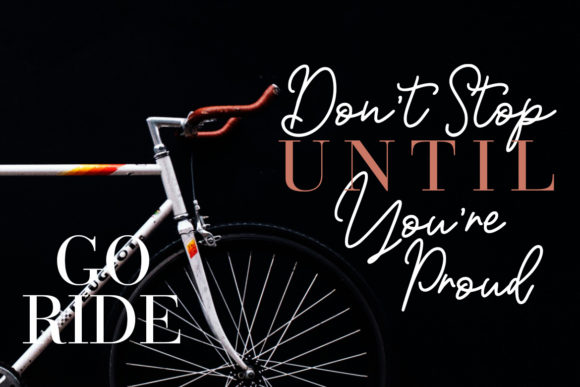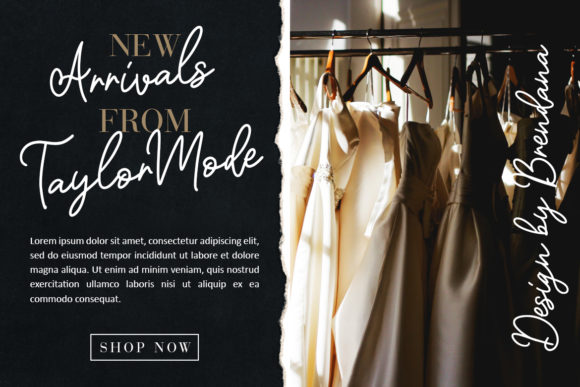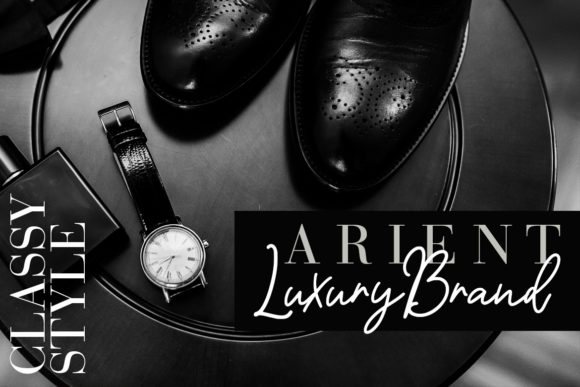
Introduction to Ruincity Font
Ruincity is an amazing and dazzling script with a cool vibe.
Get inspired by its casual feel .
Key Features of Ruincity Font
Why Choose Ruincity Font?
Ruincity Font offers exceptional quality and versatility, making it a valuable addition to your design toolkit. Whether you’re creating for personal projects or commercial use, Ruincity Font delivers professional results.